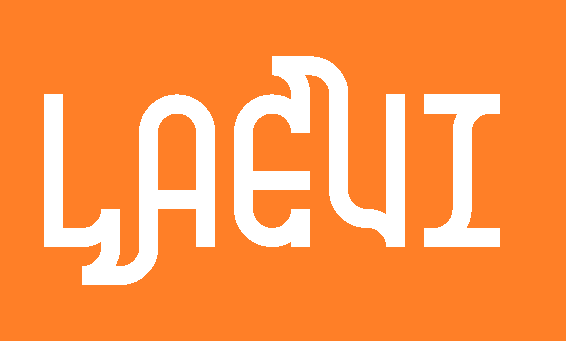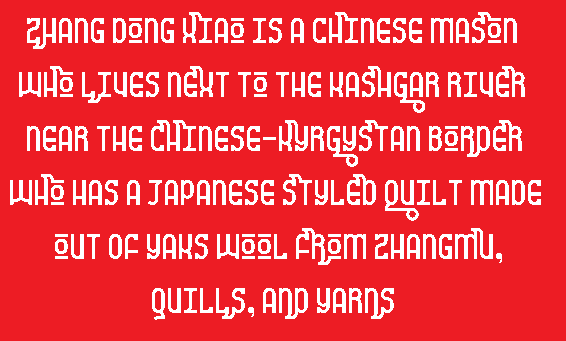
• Laevi is an Ancient Themed Font
Uppercase Letters: normal letters
Lowercase Letters: has some modifications (ß is an exception)
C, E, F, H, K, N, S, and X: has connections upwards
L, N, R, and Z: has connections downwards
G and Q: has a swoosh
O: has a different design
Numbers : normal numbers
< : different design of 0
> : connection upwards 2
$ : connection upwards 4
^ : connection upwards 6
` : connection downwards 9
Here is a Pangram, It's all of the English Alphabet, including all of the different connection letters (including the swoosh G and Q and the different design O)
Interesting ligature-like connections.
This is a cool idea and a good implementation. Unusual shapes. Reminds me of my attempt to make an ancient Russian font in my Vyaz font. But I think Д is a little boring, you can definitely do something with its right leg.